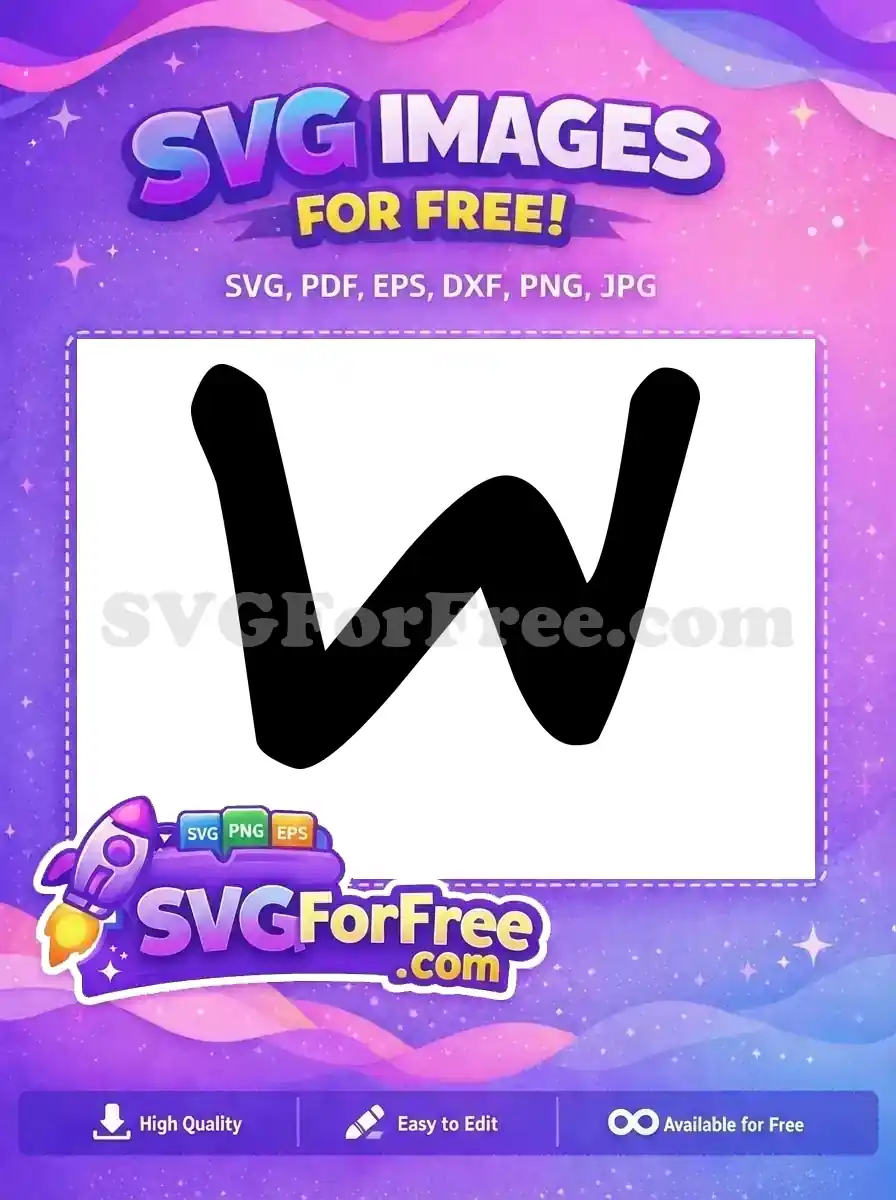
Free Wakanda Font Style Free Black Panther Inspired Alphabet Free SVG – Instant Download
Discover this free, fun, and quirky lowercase ‘w’ SVG design, perfect for personalization projects. Download now!
Free Wakanda Font Style Free Black Panther Inspired Alphabet Free SVG